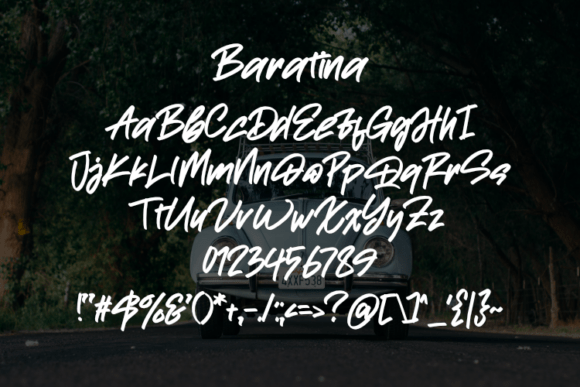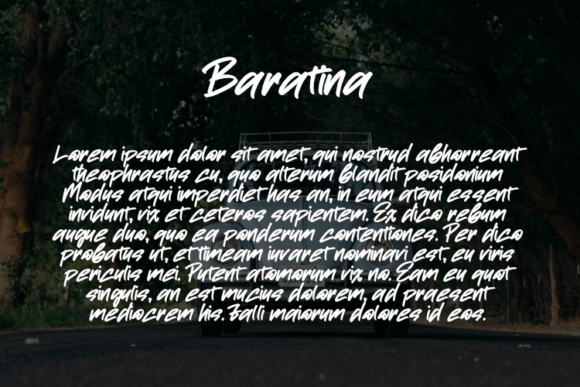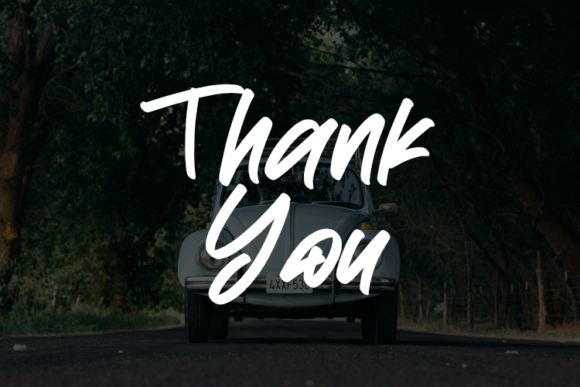
Unveiling Baratina: The Ultimate Font for Designers and Crafters
In the world of design, a font can make all the difference. It can elevate a project from ordinary to extraordinary, convey emotions, and even influence how a message is perceived. For designers and crafters looking for a versatile and stylish font to enhance their work, Baratina is an exceptional choice. This comprehensive article will explore the Baratina font, its features, and how it can seamlessly integrate into any design project.
What is Baratina Font?
Baratina is a modern, versatile font designed to cater to a wide range of design needs. Whether you’re working on clothing designs, t-shirt prints, product aesthetics, or any other creative project, Baratina is engineered to add that extra flair. Its unique style and flexibility make it an excellent addition to any design toolkit.
Key Features of Baratina Font
- Versatility: Baratina is crafted to be versatile, making it suitable for various design projects. From fashion designs to product branding, this font adapts seamlessly.
- Intricate Design: Baratina boasts an intricate design that adds depth and character to any project. Its detailed and stylish appearance makes it perfect for designs that require a bit of elegance and personality.
Benefits of Using Baratina Font
For designers and crafters, the benefits of using Baratina font are numerous:
- Enhanced Aesthetic: Baratina’s unique and stylish design can significantly enhance the aesthetic appeal of any project. Whether you’re creating apparel, accessories, or product labels, this font can help you stand out.
- Functionality and Style: Baratina beautifully marries functionality and style. Its design is not just about looks; it’s also practical and easy to use, making it an indispensable tool for designers.
Baratina is particularly perfect for designers and crafters who are looking for a font that can add a unique touch to their work. Whether you’re creating custom t-shirts, designing product labels, or working on any other type of project that requires a stylish and versatile font, Baratina is an excellent choice.
Baratina font is a game-changer for designers and crafters looking to elevate their projects with a stylish and versatile typeface. Its compatibility with all software, intricate design, and convenient OTF file format make it an indispensable addition to any design toolkit. Whether you’re looking to add flair to clothing designs, infuse personality into t-shirt prints, or enhance your product aesthetic, Baratina is the perfect choice. Discover the difference Baratina can make in your design work today.